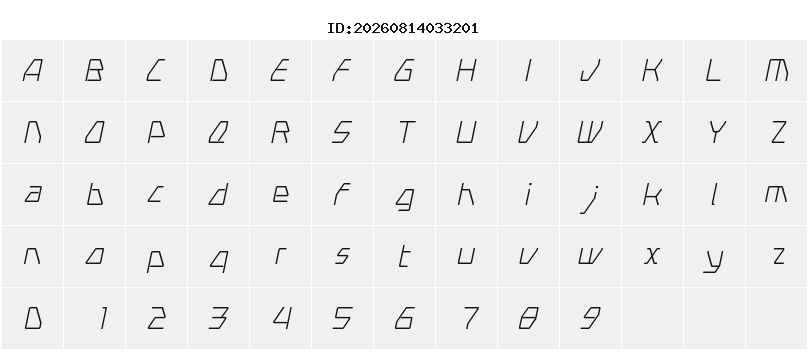
Swerve Preview
• Font Name: Swerve
• Font Style: LightItalic
• Font ID: Macromedia Fontographer 4.1.5 Swerve LightItalic
• Full Font Name: Swerve LightItalic
• Version: Macromedia Fontographer 4.1.5 12/4/00
• PostScript Name: SwerveLightItalic
• Character Count: 253
About Swerve.ttf
Swerve.ttf is a modern, elegant sans-serif font designed for ultimate readability and visual harmony. Perfect for branding, headlines, web design, and print materials.